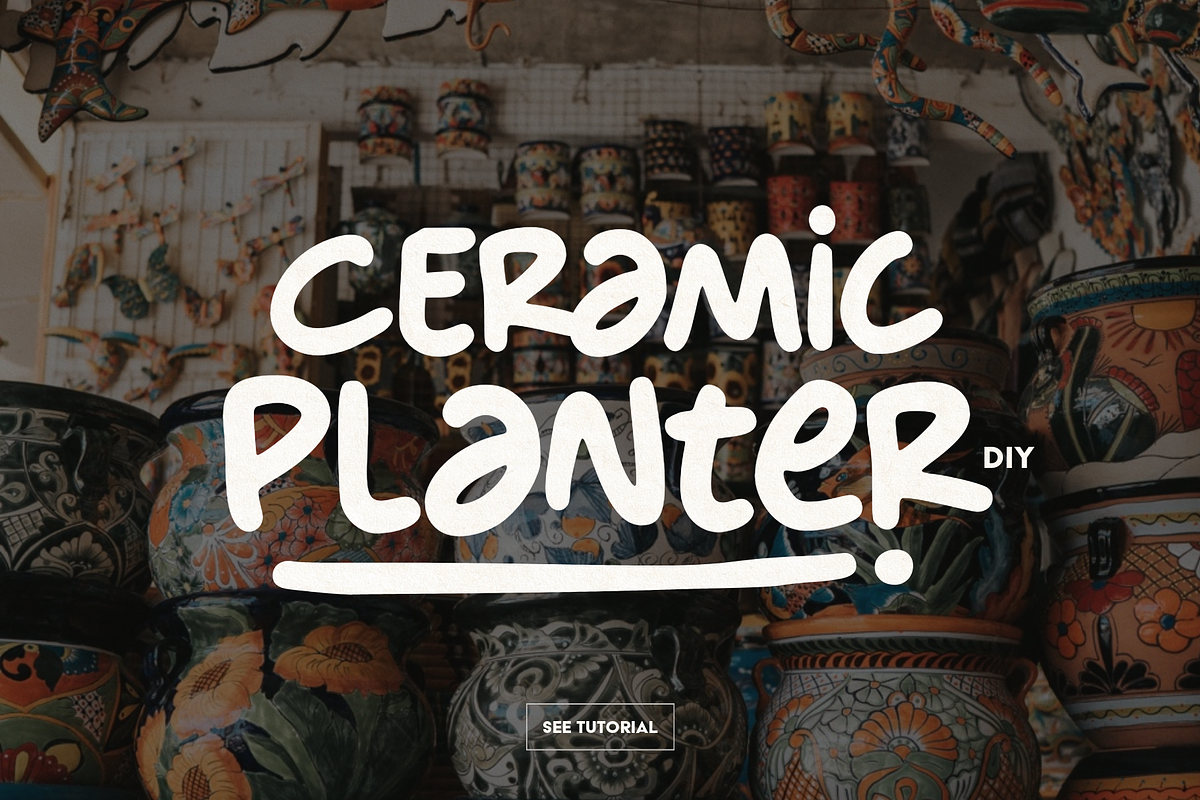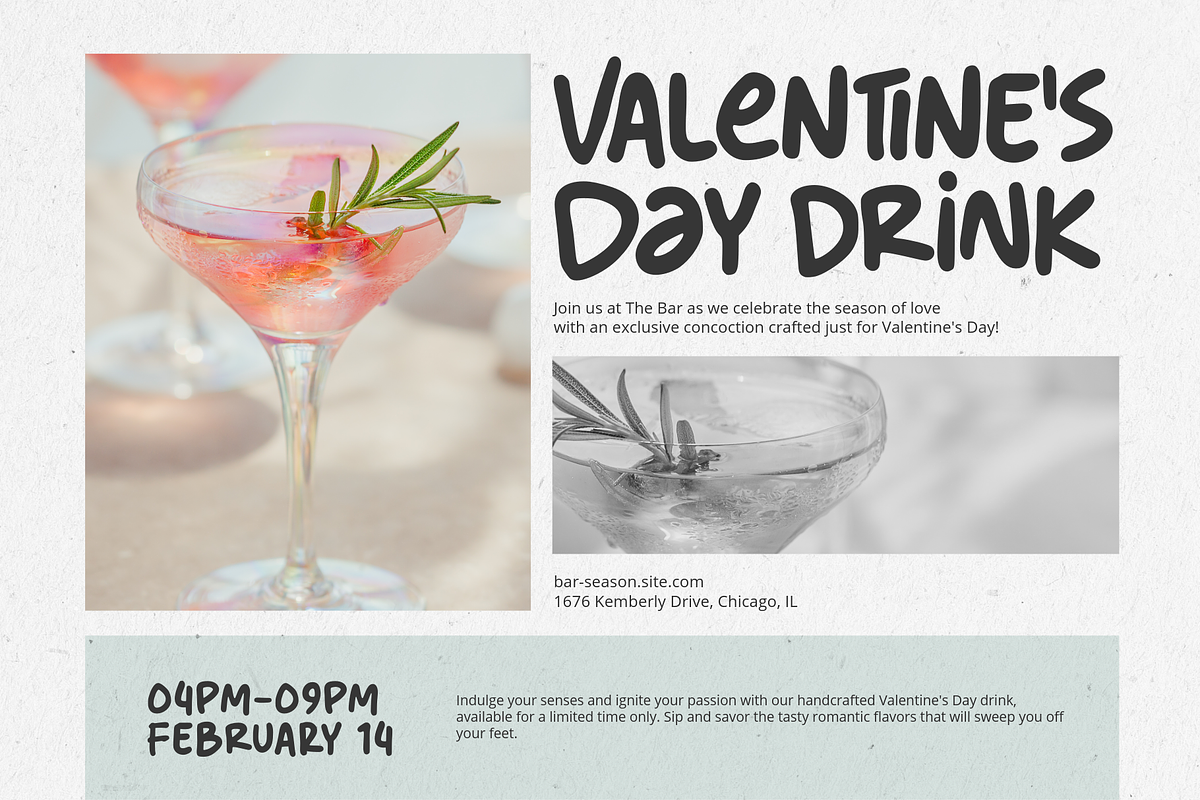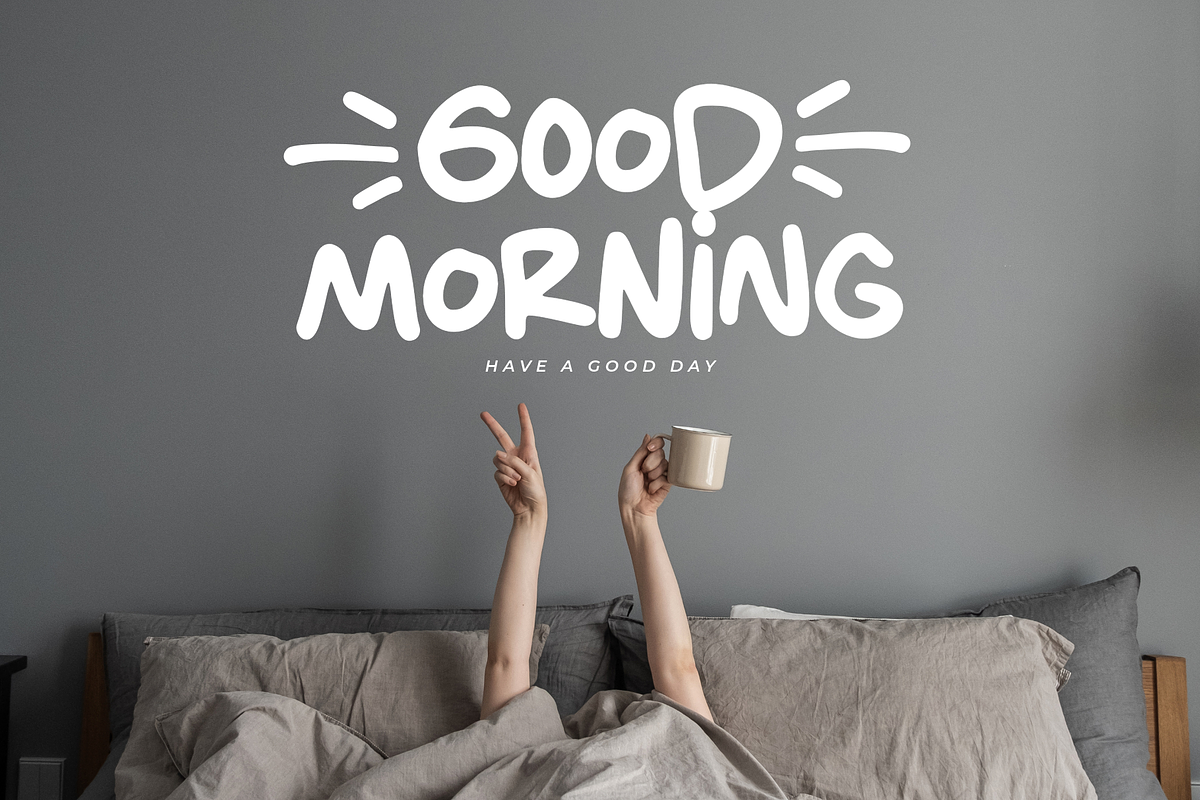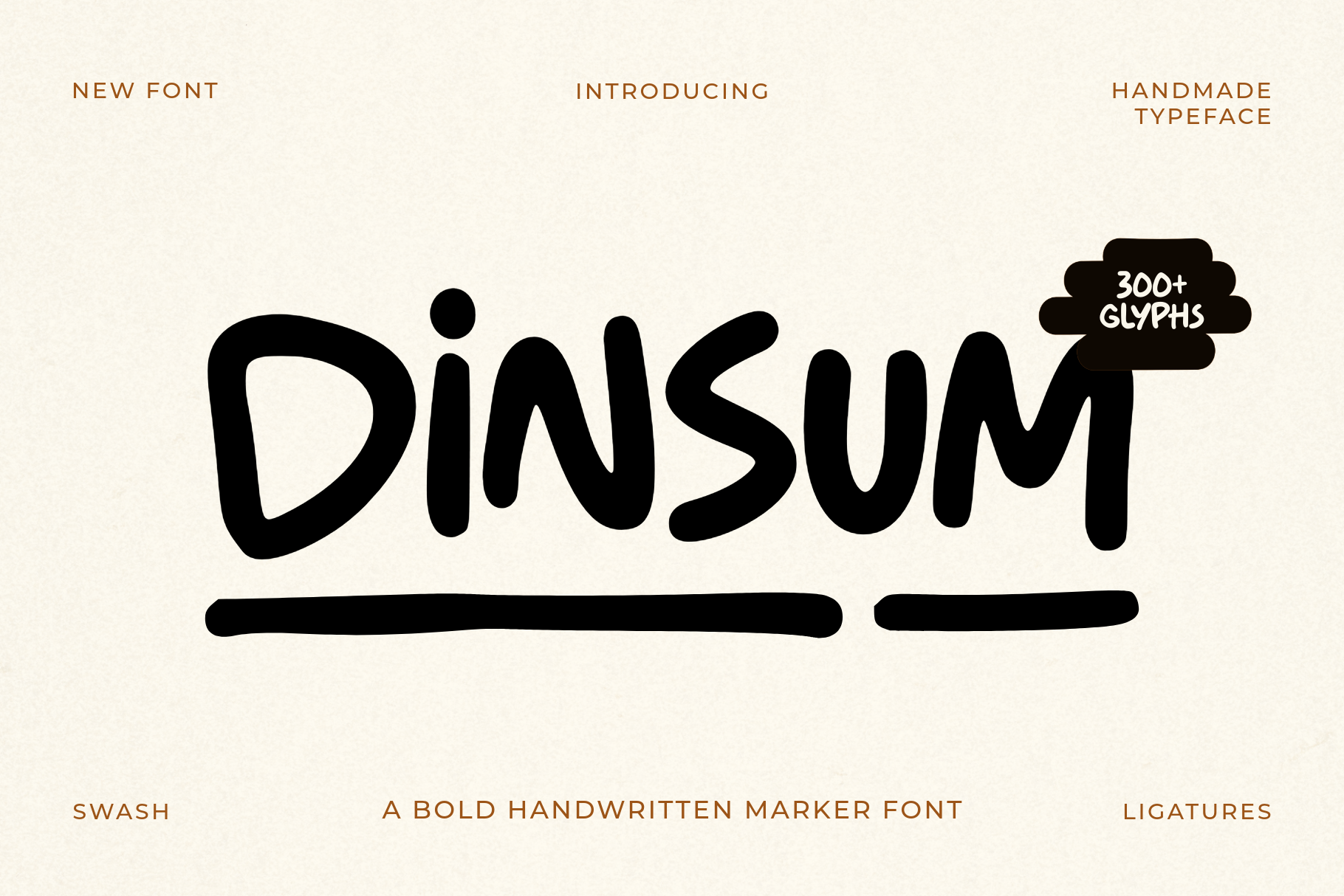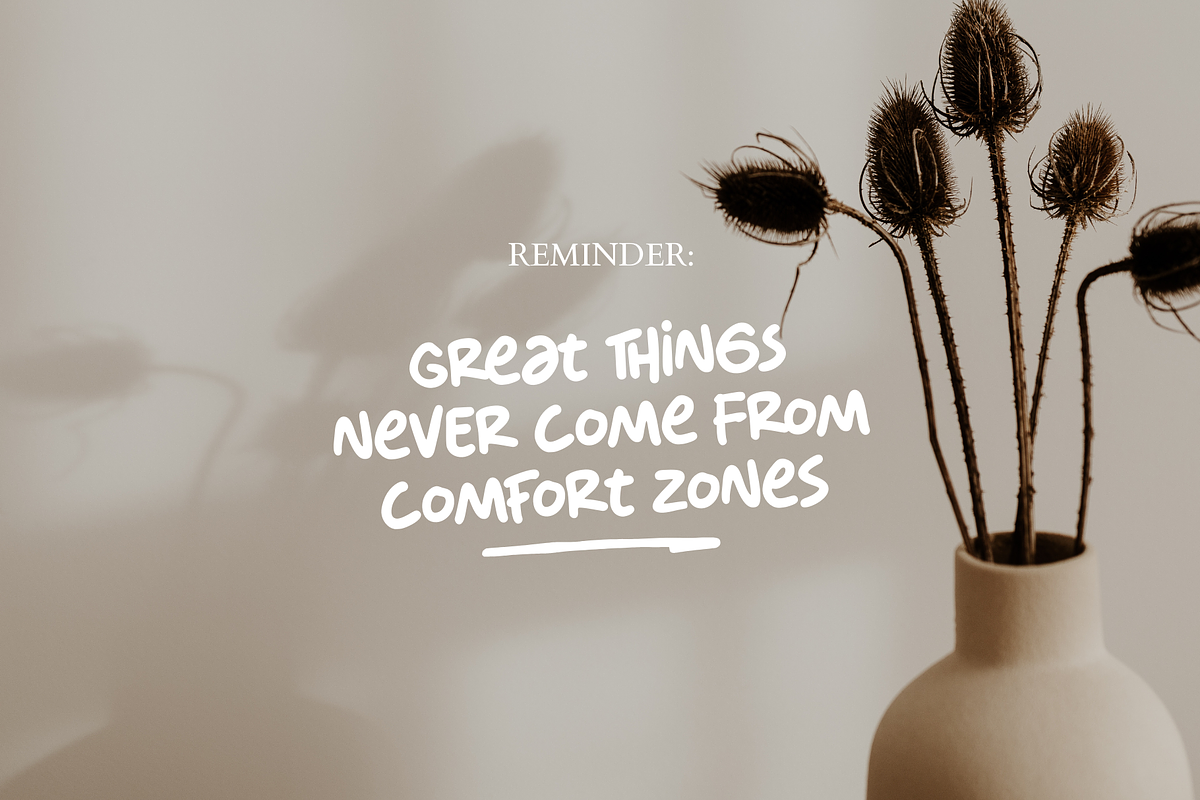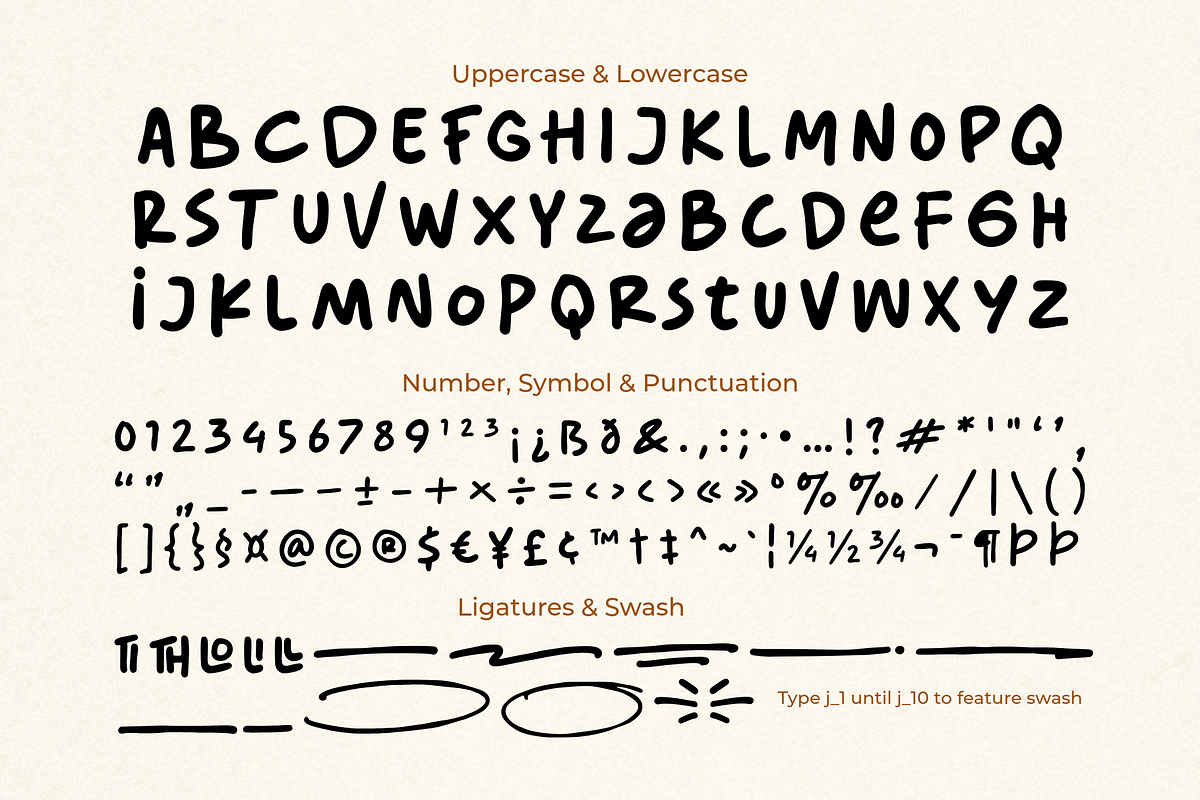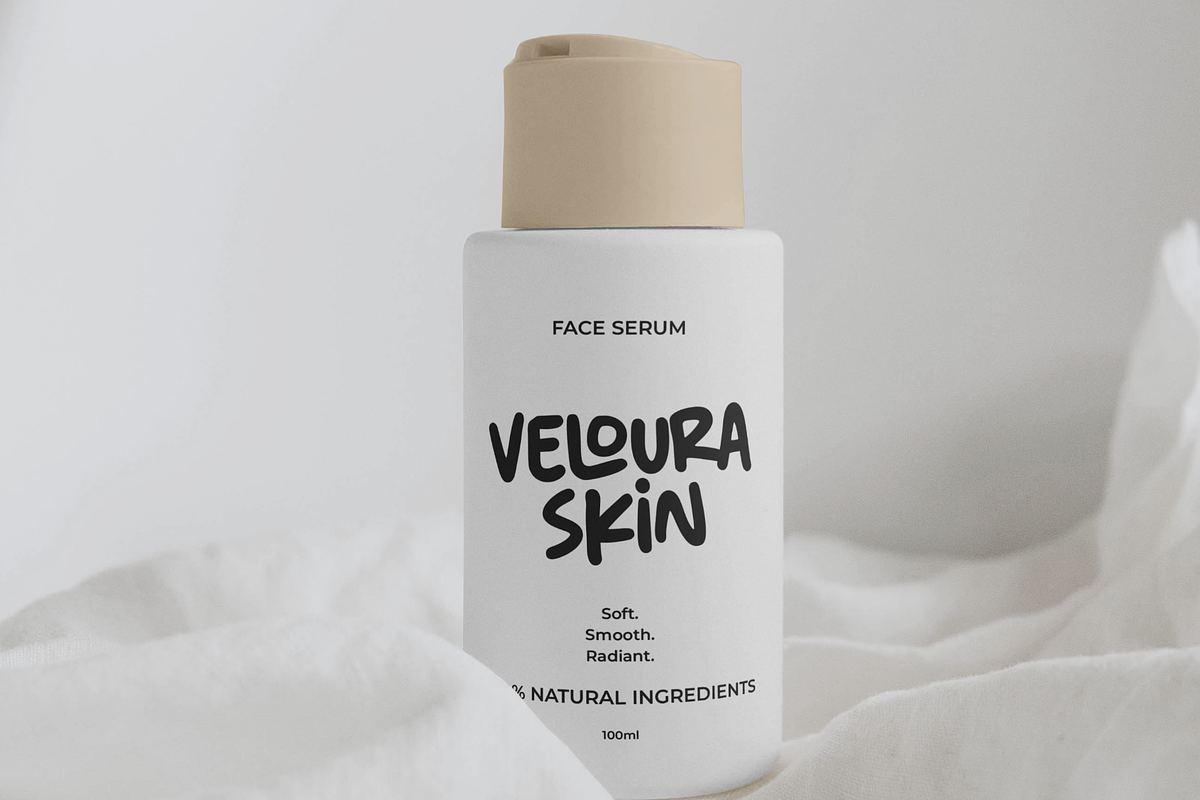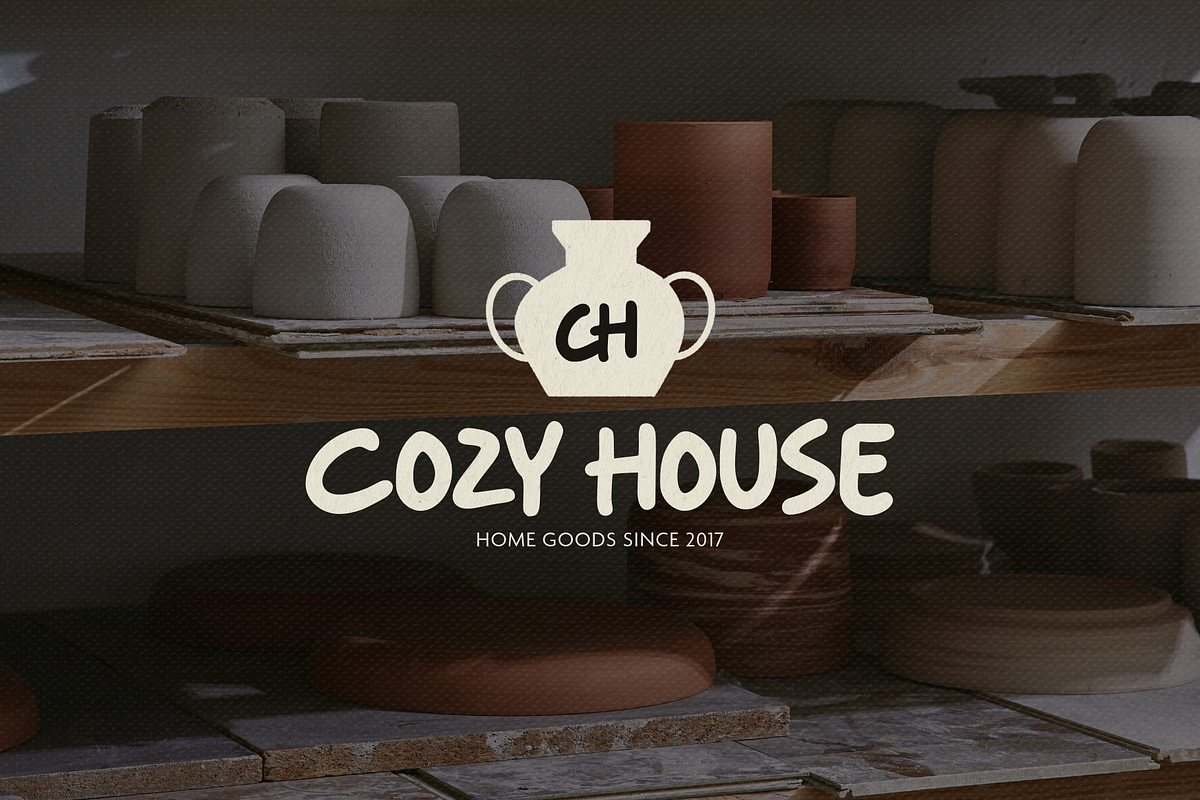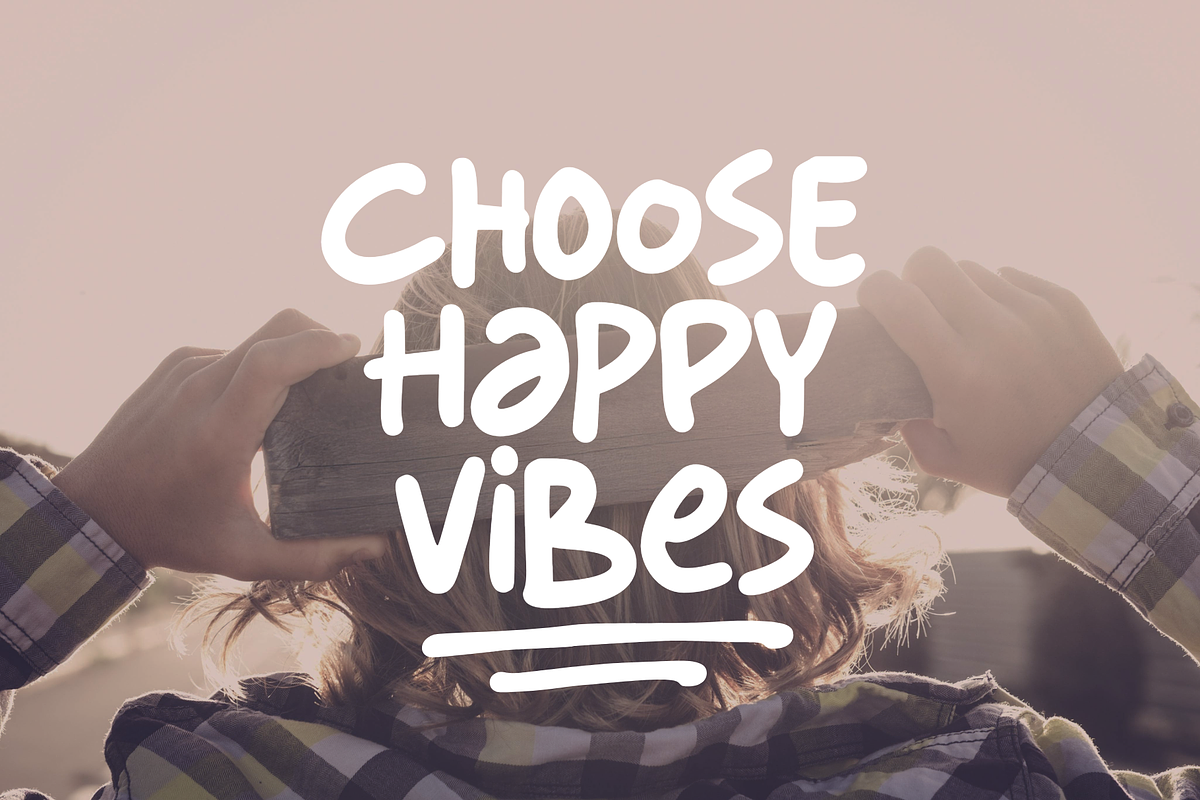
Dinsum – Bold Marker Font
Dinsum is a bold handwritten marker font with a playful and authentic handmade style. Featuring thick smooth strokes, natural curves, stylish ligatures, and creative swashes, this font is perfect for creating eye-catching typography with a fun and modern personality.
Carefully crafted for designers, creators, and branding projects, Dinsum works beautifully for logos, packaging, social media, posters, children’s designs, café branding, stickers, merchandise, YouTube thumbnails, and more. The bold marker look gives your text a strong visual impact while still feeling friendly and approachable.
With over 300 glyphs and multilingual support, Dinsum offers flexibility for both personal and commercial creative projects. Its unique handwritten feel makes every design look more expressive, trendy, and memorable.
A set of uppercase and lowercase glyphs
Number, symbol, and punctuation
Ligatures & Swashes